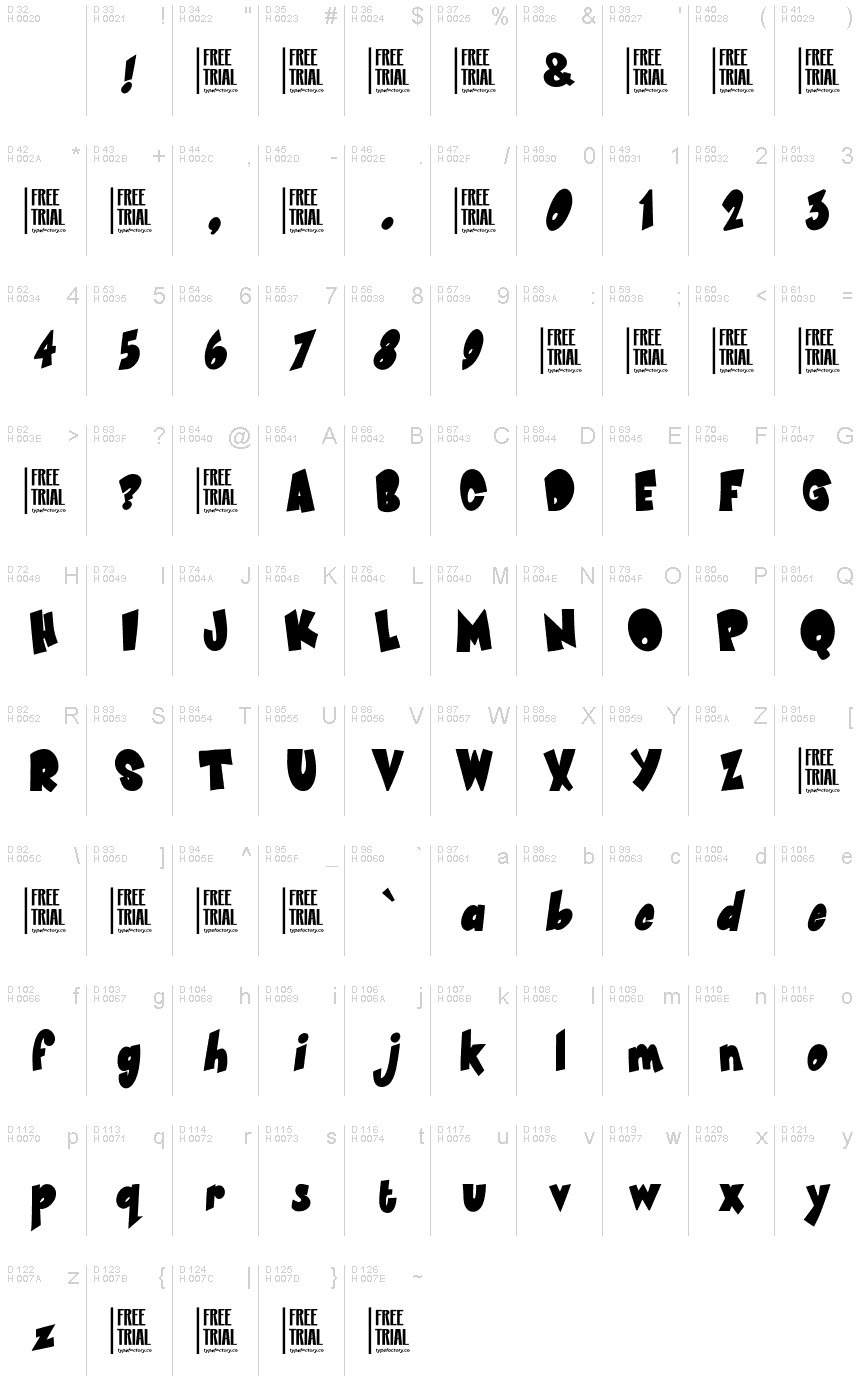
Main Kind, crafted by the creative minds at Typefactoryco, is an extra-bold display font that exudes a cartoonish allure. With its playful contours and whimsical character shapes, this typeface captures the essence of fun and creativity. The exaggerated proportions and jaunty angles of Main Kind create a visual rhythm that is both captivating and approachable.
The font's aesthetic appeal lies in its ability to blend comic book flair with contemporary boldness, making it perfect for projects that require a touch of lightheartedness without sacrificing impact. Whether it's for eye-catching headlines, vibrant logos, or engaging children's literature, Main Kind's distinctive style ensures your design will leave a lasting impression.